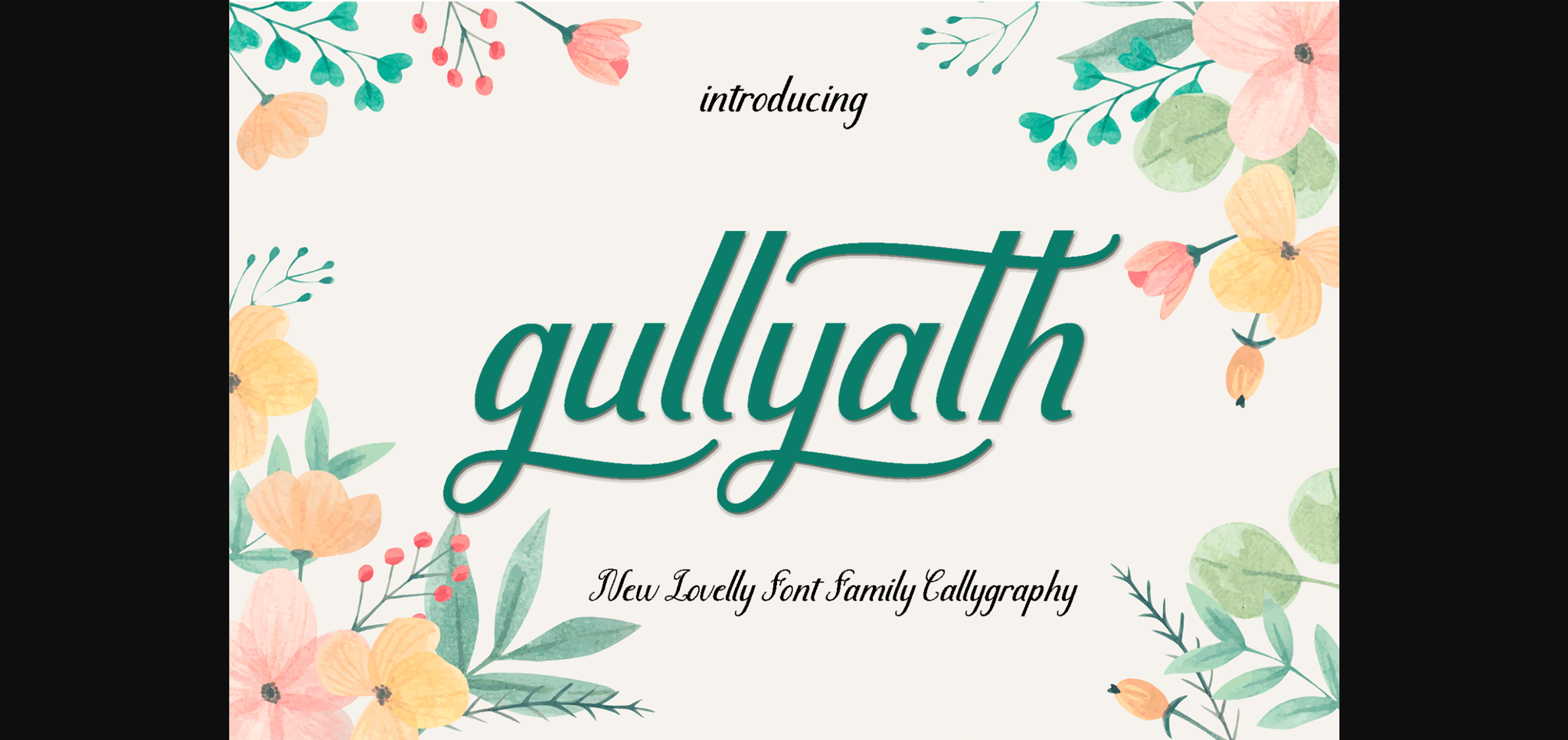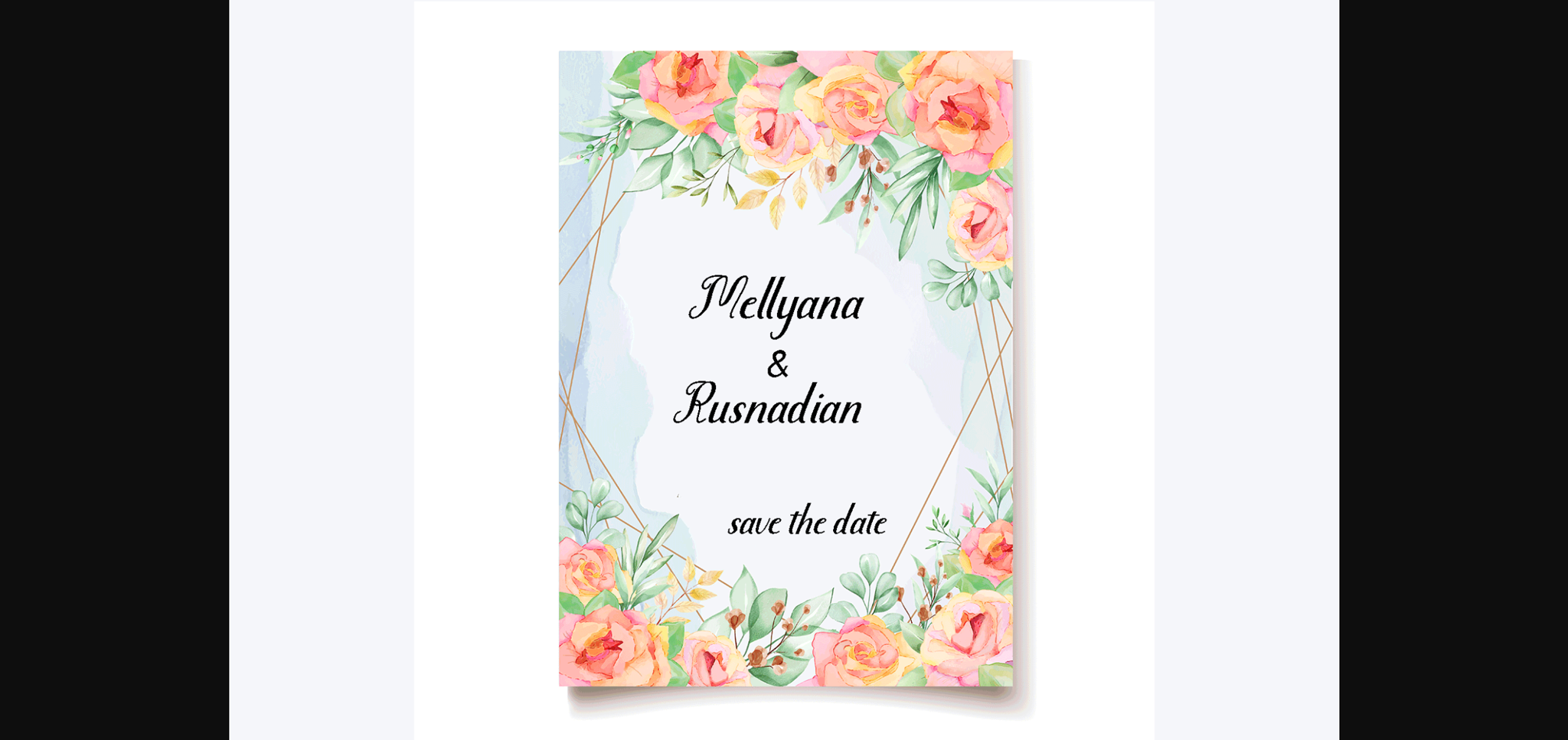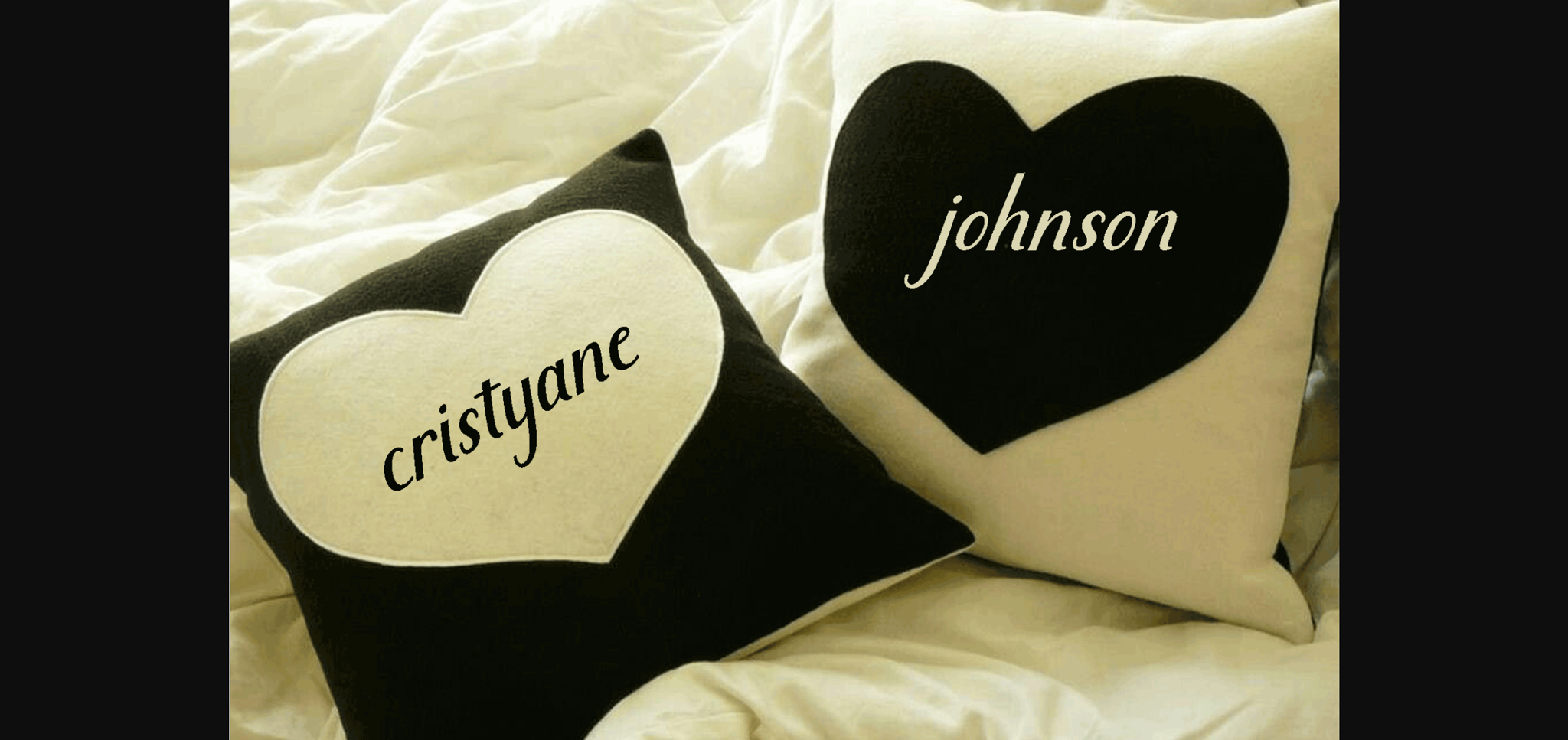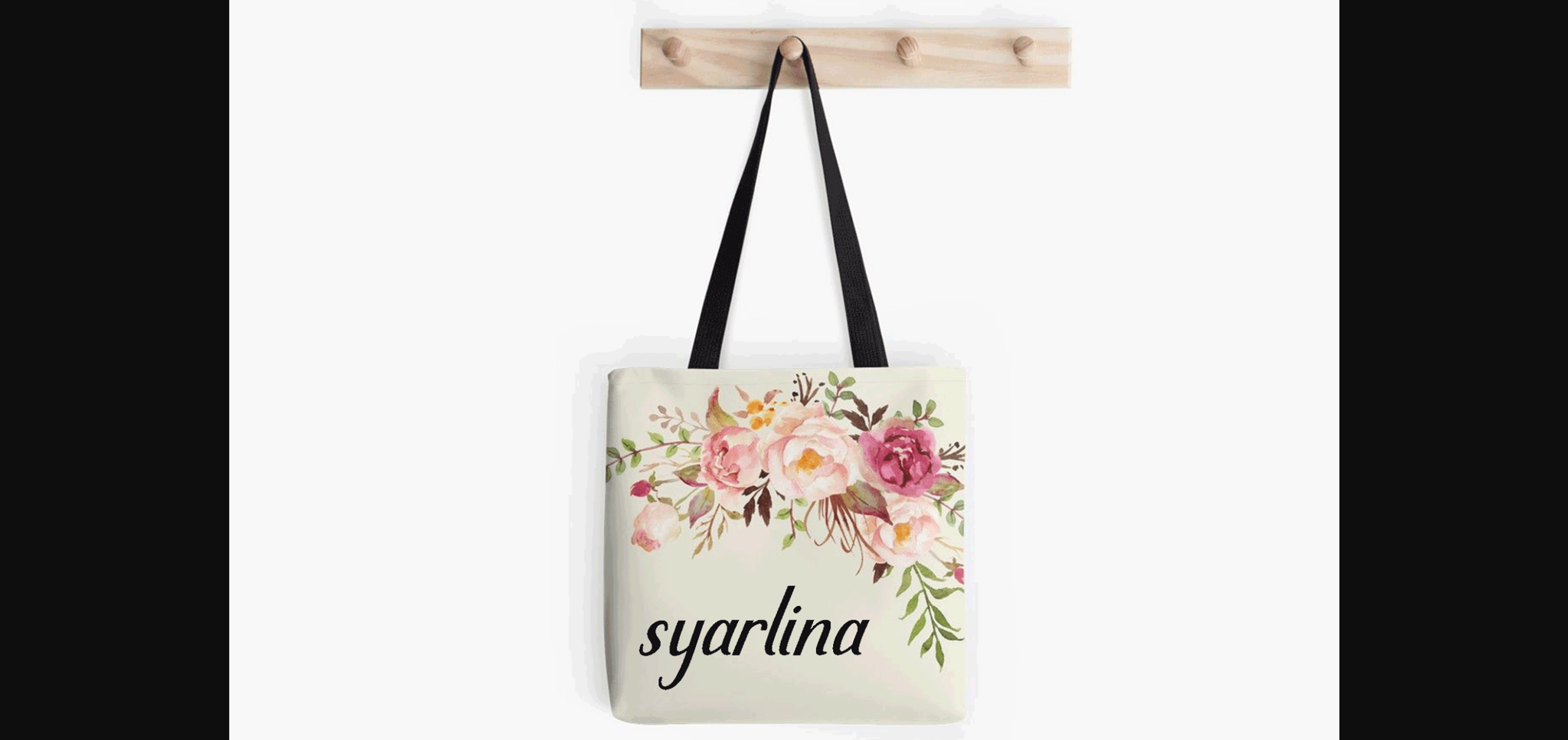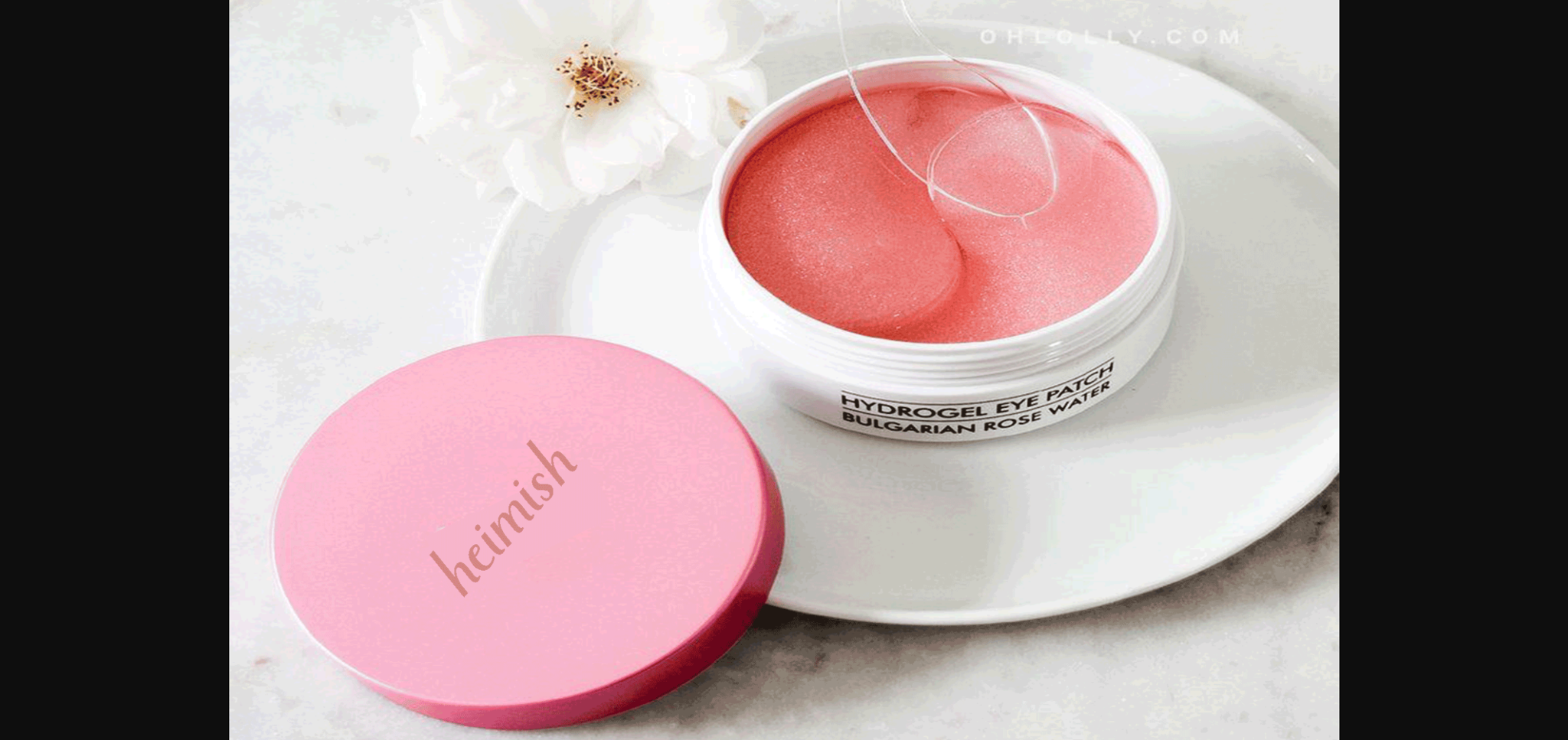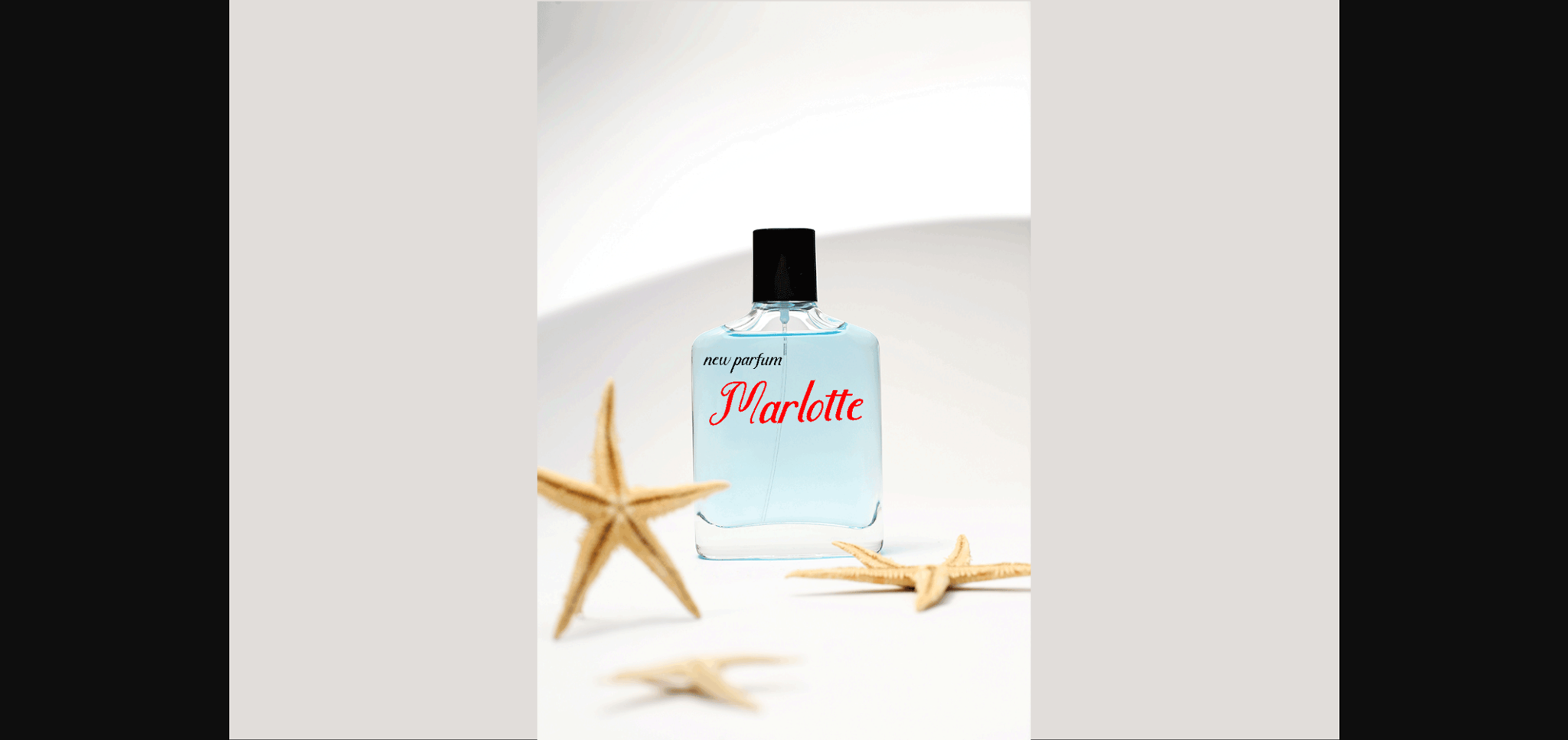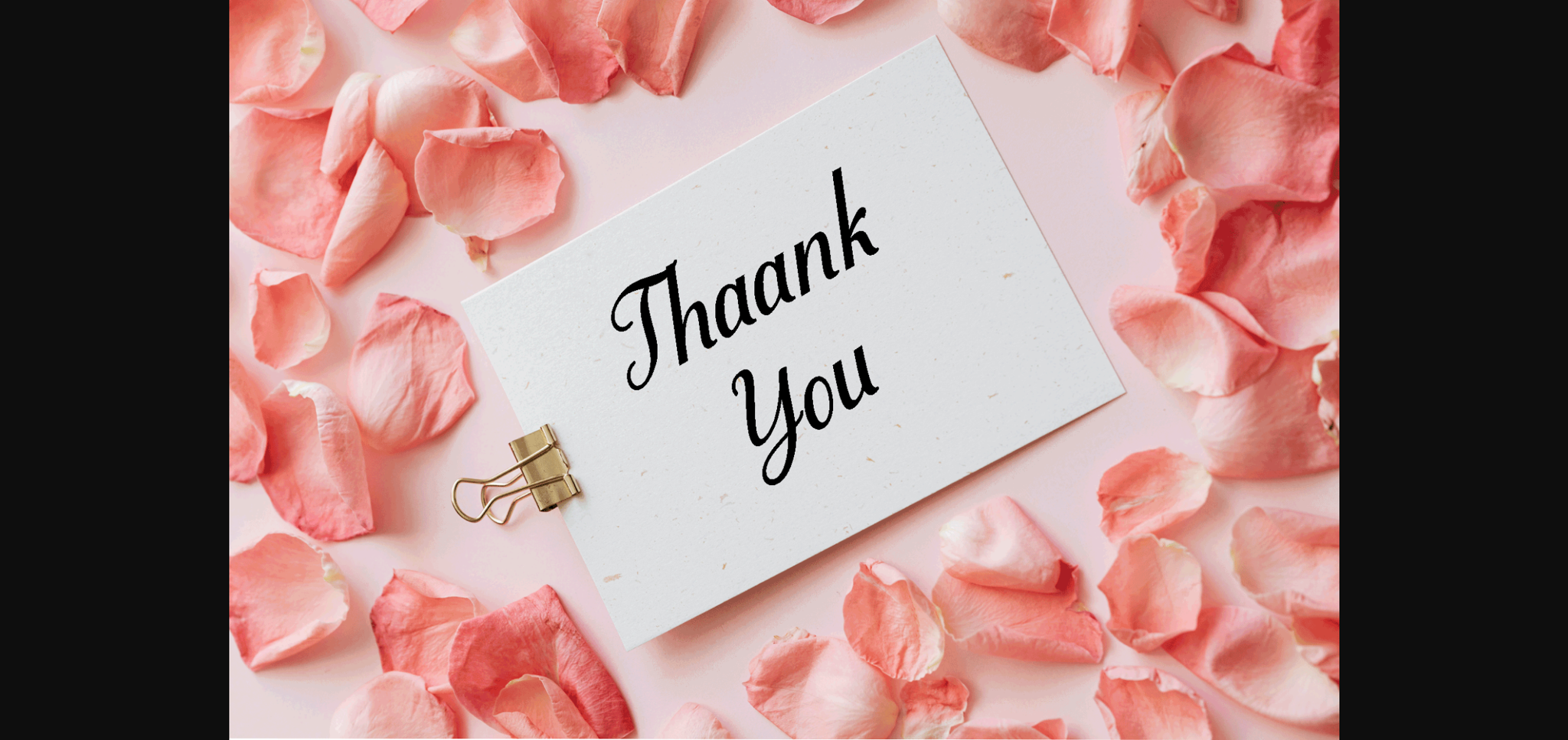
Gullyath Font
About Gullyath Font
Gullyath is a cute and casual handwritten font with an incredibly friendly feel. It features gorgeous swashes and ligatures that make this script incredibly versatile. Whether you’re looking for fonts for Instagram or calligraphy scripts for DIY projects, Gullyath will turn any creative idea into a true piece of art!